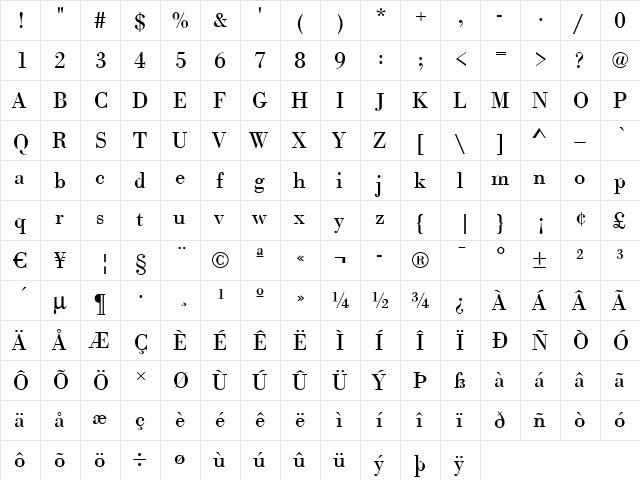
OlgaBecker Regular
Design Context for OlgaBecker Typeface
OlgaBecker offers clean, dependable letterforms without strong stylistic allegiance, making it a practical choice for designers who need flexibility.